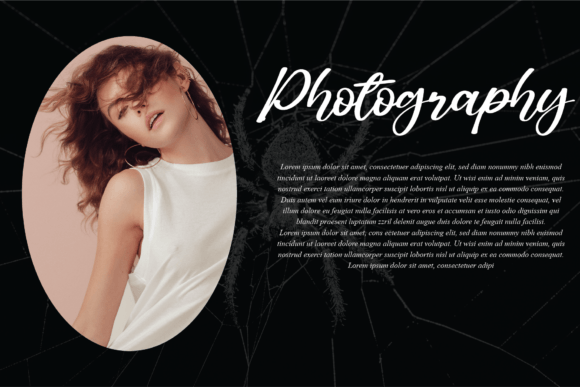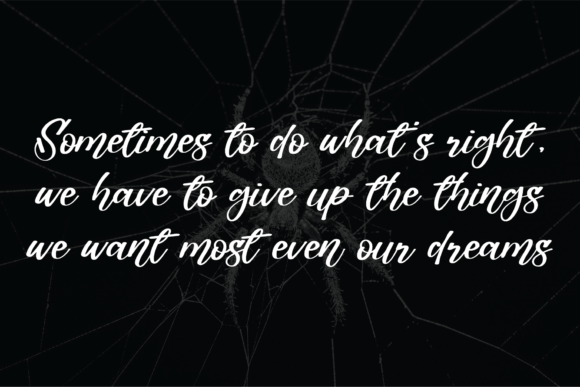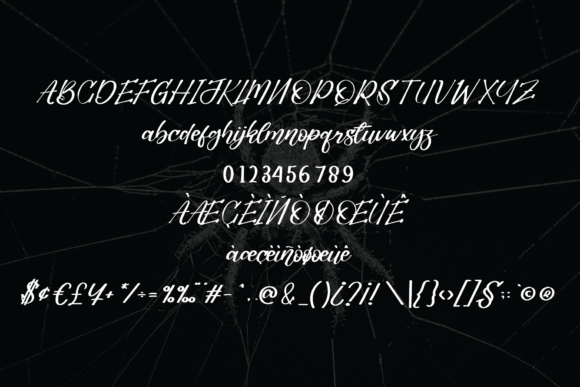
Introduction to Ghost Spider Font
Ghost Spider is an elegant handwritten font that looks beautiful and has a modern impression.
It looks stunning if used on wedding invitations, thank you cards, greeting cards, business cards, logos products, advertisements, quotes, and every other design that needs a handwritten touch It presents varied and interesting hand strokes in the form of lines, fields, and stunning alternates.
Ghost Spider Font offers exceptional quality and versatility, making it a valuable addition to your design toolkit. Whether you’re creating for personal projects or commercial use, Ghost Spider Font delivers professional results.